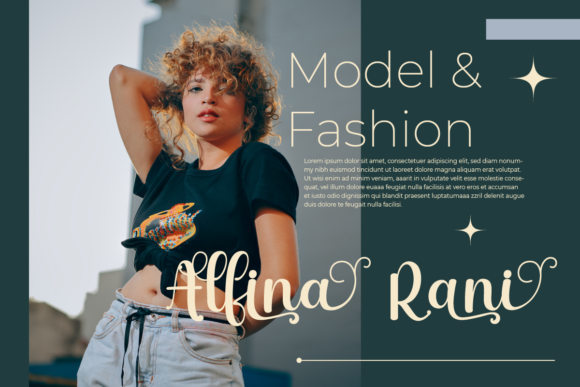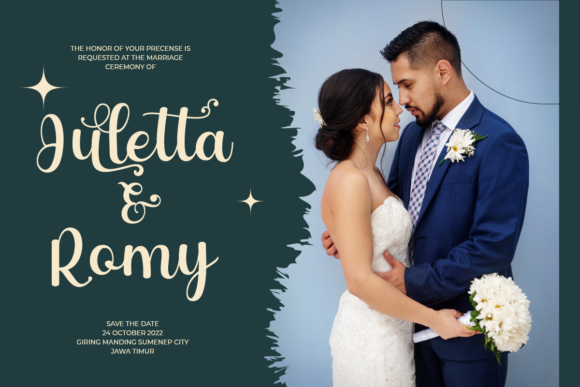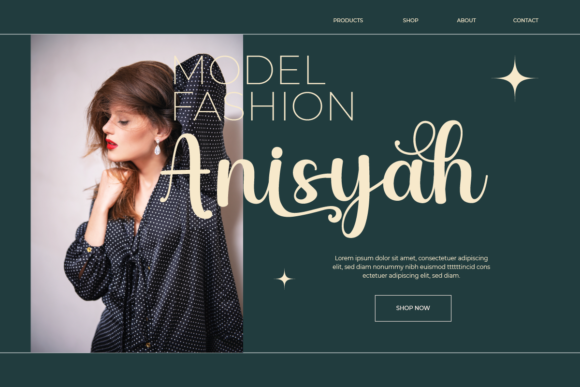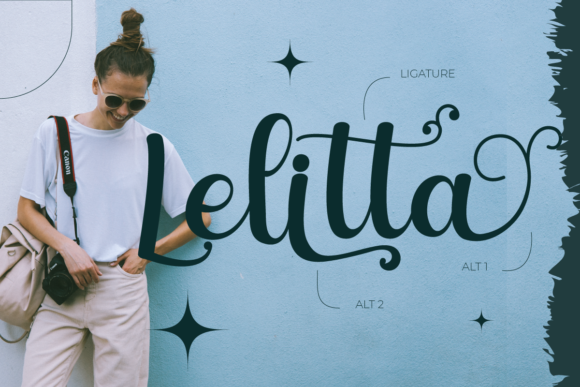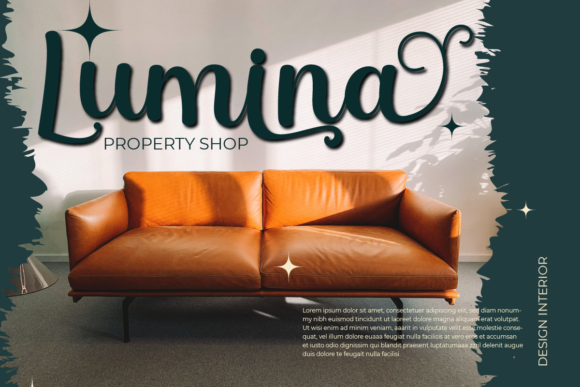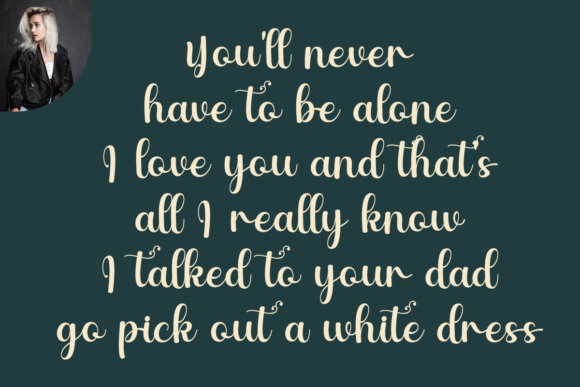
Introducing Hay Lelitta Font: The Perfect Handwritten Touch for Your Designs
Are you looking for a beautiful, handwritten font to elevate your designs? Look no further than Hay Lelitta Font! This stunning font is perfect for a wide range of projects, from wall displays and wedding invitations to social media posts and product packaging. With its elegant, cursive script and PUA encoding, Hay Lelitta Font is the ideal choice for designers and crafters who want to add a touch of personality to their work.
What Makes Hay Lelitta Font So Special?
Hay Lelitta Font is a beautifully crafted handwritten font that is designed to add a touch of elegance and sophistication to any project. Its flowing script and delicate lines make it perfect for creating eye-catching displays, invitations, and promotional materials. Whether you’re designing a wedding invitation, a social media post, or a product label, Hay Lelitta Font is sure to make your project stand out.
One of the best things about Hay Lelitta Font is its versatility. This font is perfect for a wide range of projects, including:
- Wall displays and signage
- Advertisements and promotional materials
- Product packaging and labels
- Product designs and mockups
- Photography and watermarks
- Invitations and stationery
Hay Lelitta Font is PUA (Private Use Area) encoded, which means that you can access all of the glyphs and swashes with ease. This encoding allows you to easily access the font’s built-in features, such as:
- Alternate characters and glyphs
- Swashes and flourishes
- Ligatures and connections
With PUA encoding, you can easily customize your text and make it more visually appealing.
Why Designers and Crafters Love Hay Lelitta Font
Designers and crafters love Hay Lelitta Font for its unique combination of elegance and versatility. Here are just a few reasons why:
- Elegant script: Hay Lelitta Font features a beautiful, cursive script that adds a touch of sophistication to any project.
- Highly versatile: This font is perfect for a wide range of projects, from wedding invitations to product packaging.
- Easy to use: With PUA encoding, you can easily access all of the font’s features and customize your text.
- Unique and creative: Hay Lelitta Font is a one-of-a-kind font that will help your project stand out from the crowd.
Tips for Using Hay Lelitta Font
Here are a few tips for using Hay Lelitta Font in your designs:
- Use it sparingly: Hay Lelitta Font is a statement font, so use it sparingly to add emphasis to your text.
- Experiment with colors: This font looks great in a variety of colors, so don’t be afraid to experiment and find the perfect hue for your project.
- Pair it with other fonts: Hay Lelitta Font pairs well with a variety of other fonts, so try pairing it with a sans-serif font for a bold, modern look.
Hay Lelitta Font is a beautiful, handwritten font that is perfect for designers and crafters who want to add a touch of elegance and sophistication to their work. With its elegant script, PUA encoding, and versatility, this font is sure to become a favorite in your design arsenal. Whether you’re designing a wedding invitation, a social media post, or a product label, Hay Lelitta Font is the perfect choice.